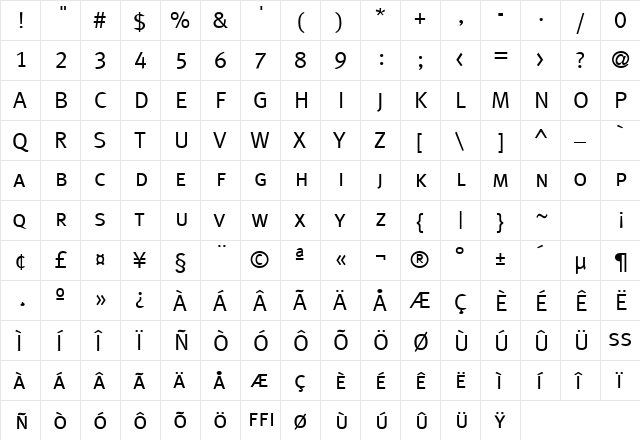
MetaPlusNormal-Caps Regular
Design Context for MetaPlusNormal-Caps Typeface
MetaPlusNormal-Caps takes a measured approach to typography — its balanced proportions and neutral character make it a reliable workhorse for both digital and print work.